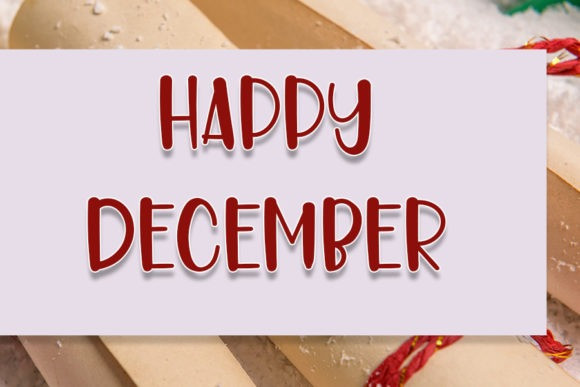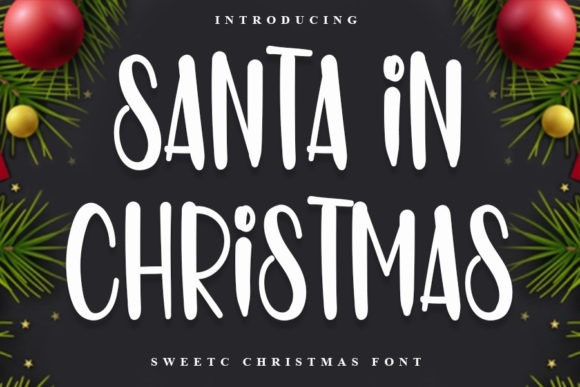
Santa in Christmas Font
Santa In Christmas Display Font is a playful and friendly display font that emanates confidence and versatility. Its stylish alternates and ligatures make this font the perfect match for any project.